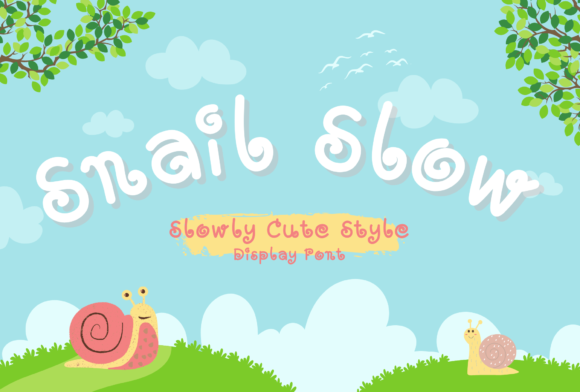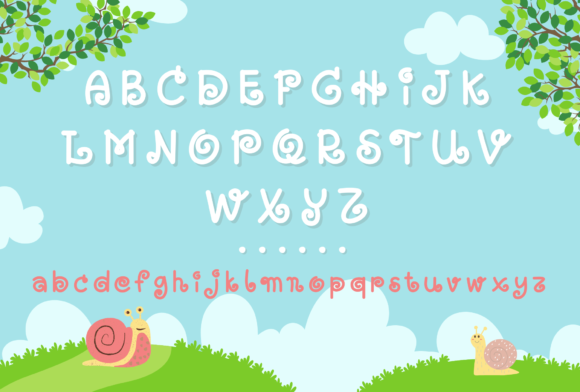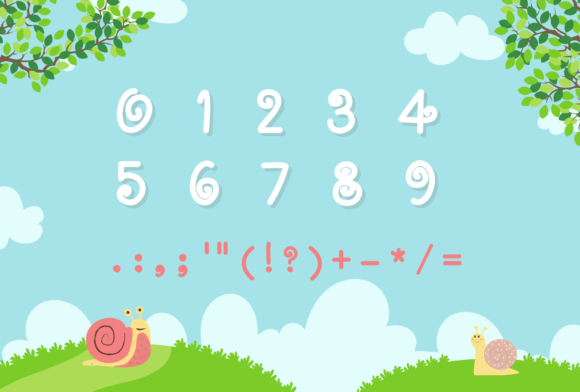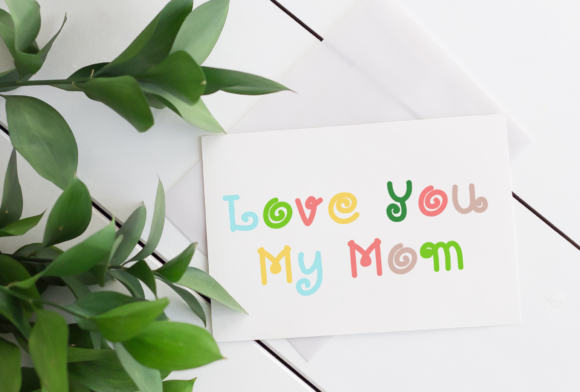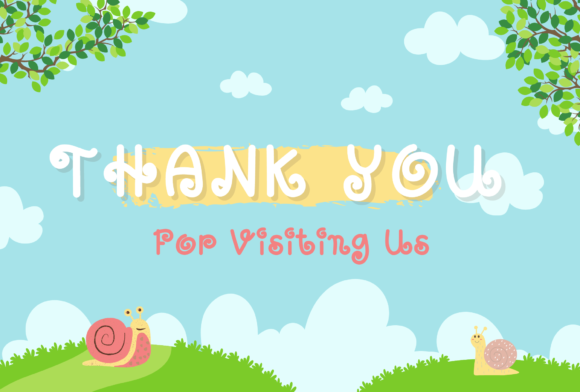
Snail Slow Font
Snail Slow is a cute and friendly slab serif font. It matches a wide range of creations that require a sweet, natural touch. This font is perfect for children-themed designs, logos, branding, short name, and crafty DIY projects!